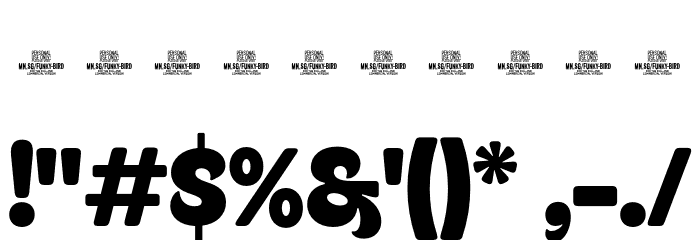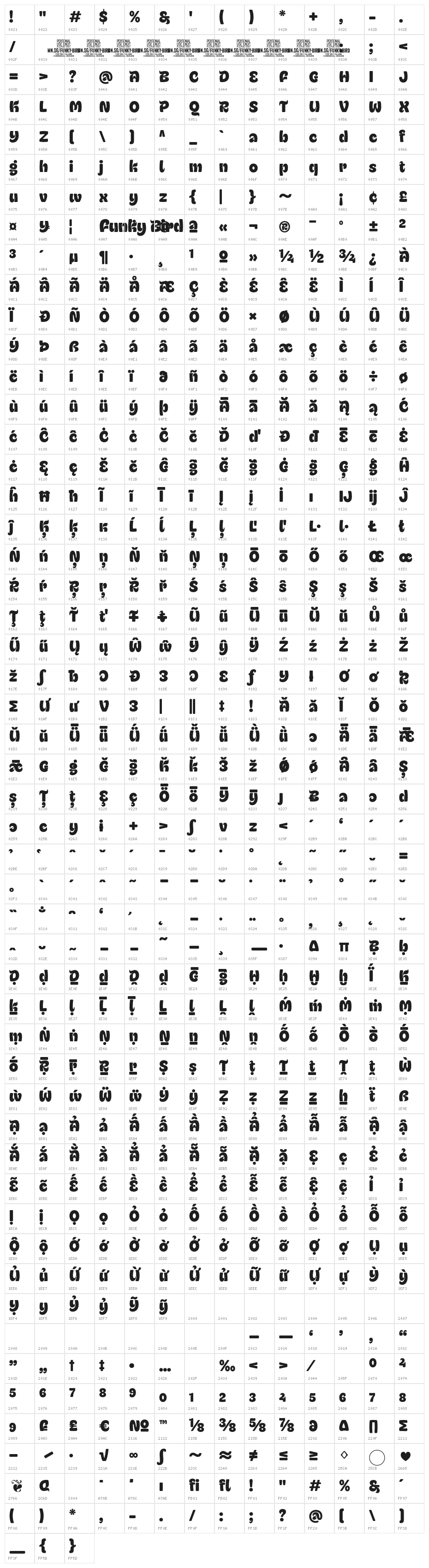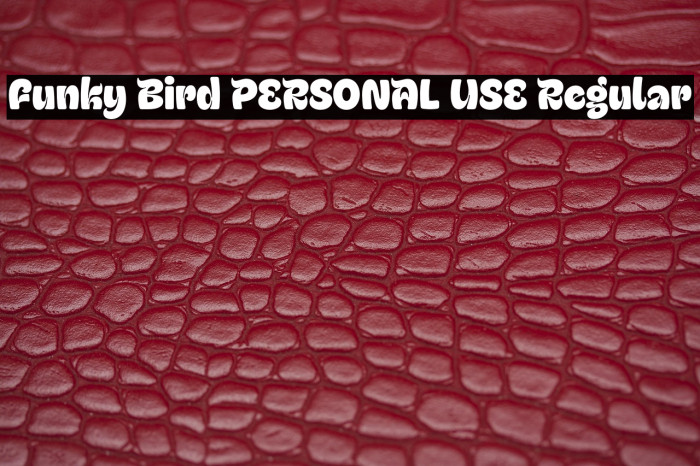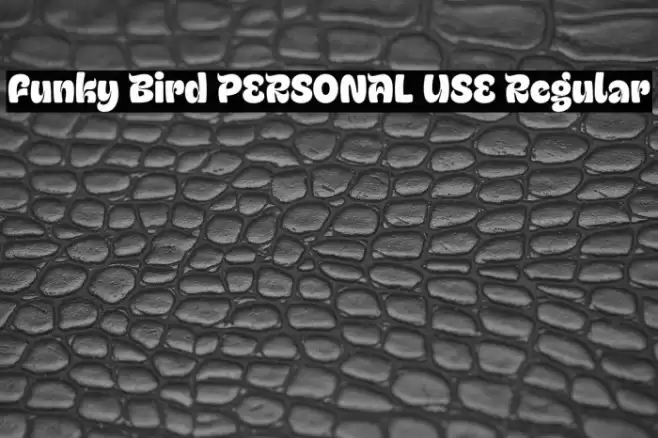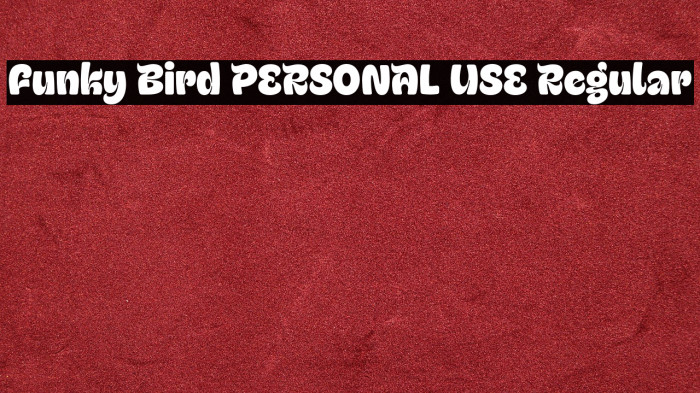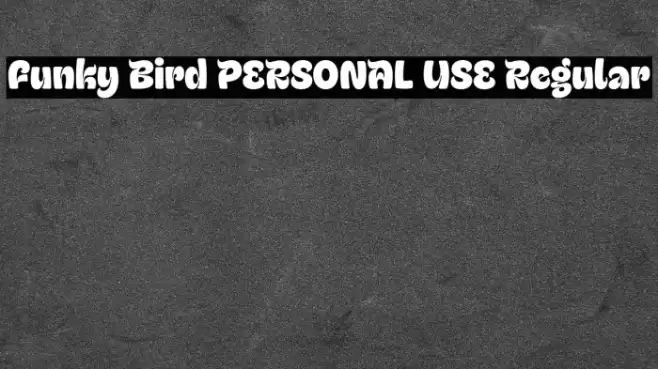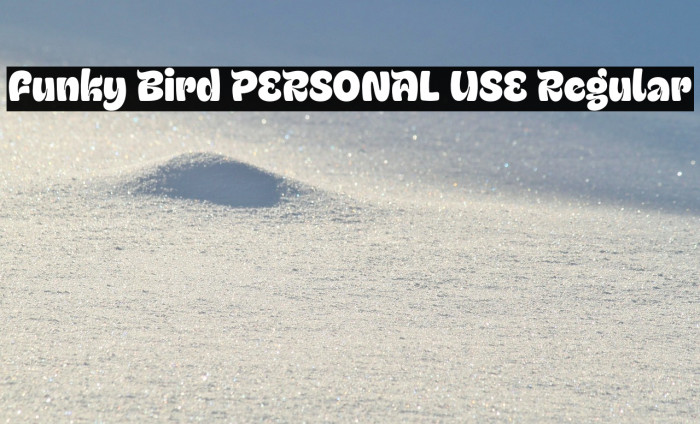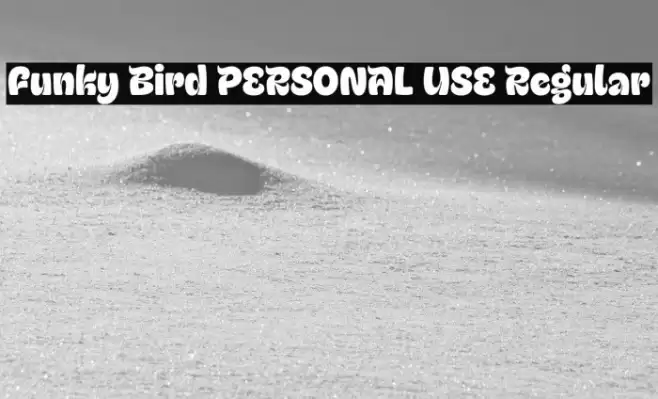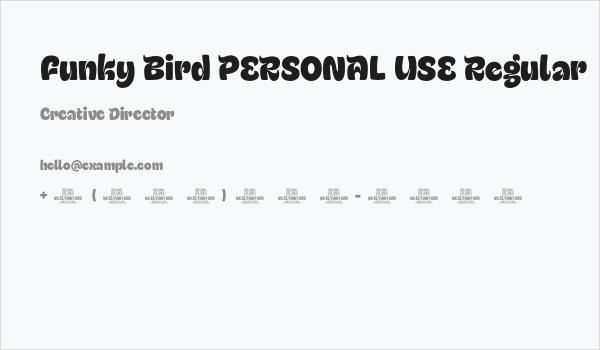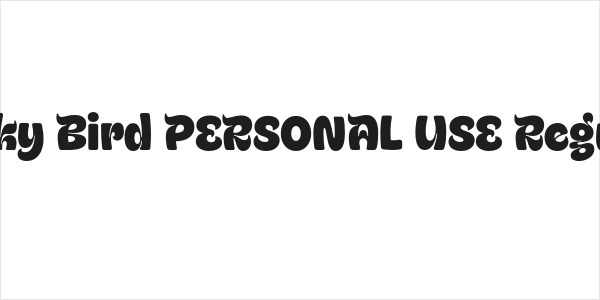
Funky Bird PERSONAL USE Regular Font
Funky Bird PERSONAL USE Regular Description
This font features a bold and playful design with thick, rounded strokes that give it a whimsical and lively appearance. The characters are slightly condensed, contributing to a compact and energetic look. The uppercase and lowercase letters maintain a consistent style, with exaggerated curves and a touch of retro flair. The numbers and special characters follow the same design principles, ensuring uniformity across the font. The overall style is decorative and eye-catching, making it suitable for projects that require a fun and engaging typeface.
| Width | Condensed |
| Overall Style | Decorative |
| Use Case | Headlines, Logos |
| Proposed Projects | Ideal for children's books, playful branding, party invitations, and posters. |